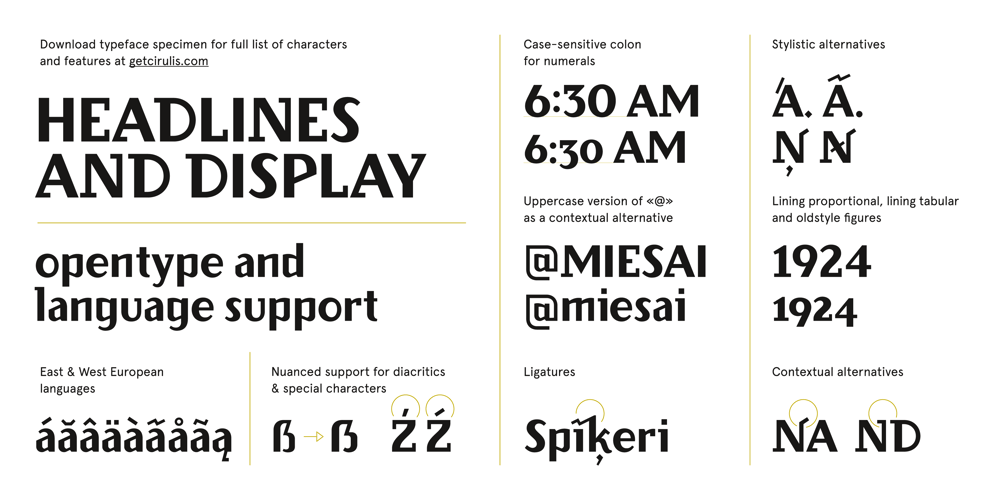
Cirulis Display
Cirulis Display font
Cirulis Display Font Family was designed by published by Asketic Design Studio. Cirulis Display contains 2 styles and family package options. Cirulis is a display sans family of two weights. Inspired by the lettering of Ansis Cīrulus (1883-1942) one of the first Eastern European designers. The artist’s heritage is characterized by letters with asymmetric widths, sliced cuts and various intrinsic features. By carefully studying forms and origins of the letters Asketic designed a new typeface that in a contemporary fashion relives early 20th century national romanticism of Eastern Europe.